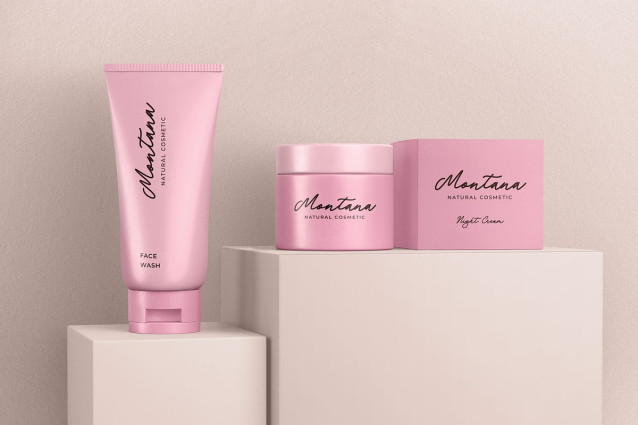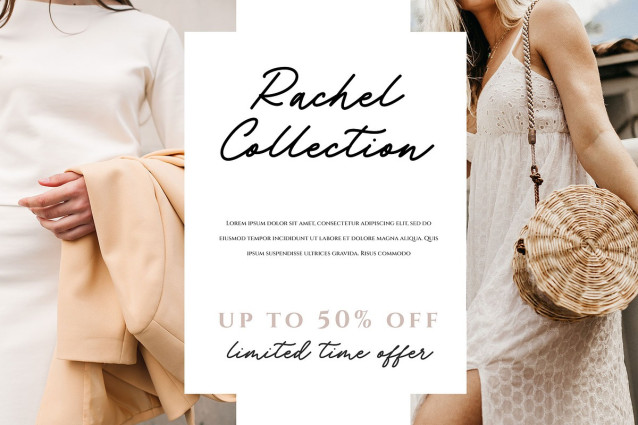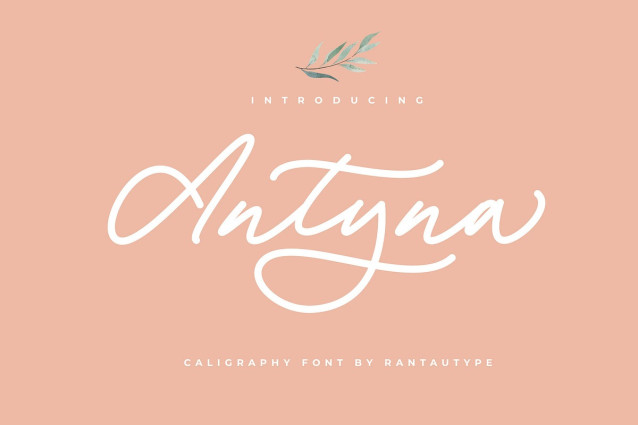
Antyna Font is girly business font which can be interpreted professional . We keep this font looks modern, feminine, readable, catchy and easy to use. Antyna come with ligature, alternate and multilingual accent support.
Antyna is a beautiful choice for any creative endeavor, chic, lifestyle design such as logos, title, watermark on photography, cover, branding, display and magazine, wedding event, quotes, album cover, business card, corporate, business project and many other design project. Antyna here to make your work stand out!!